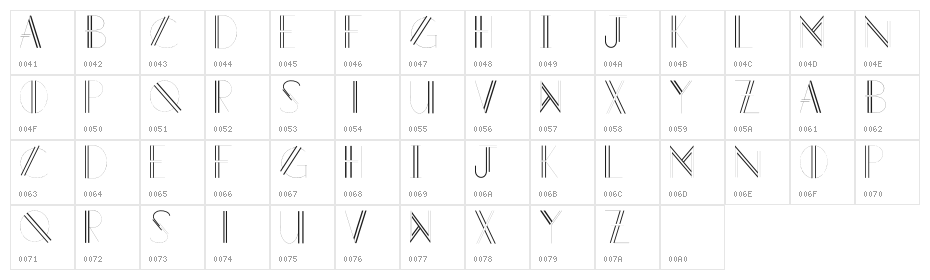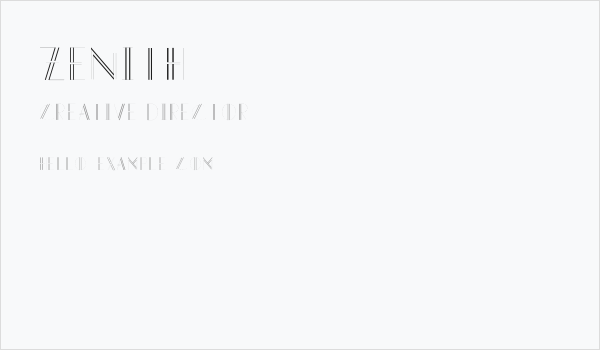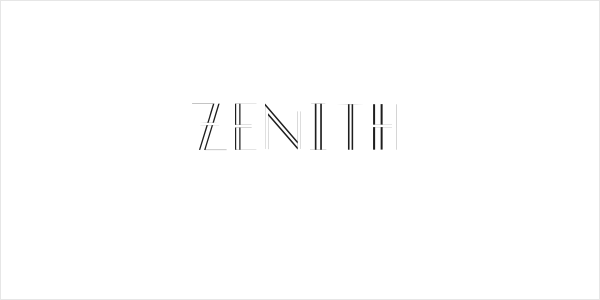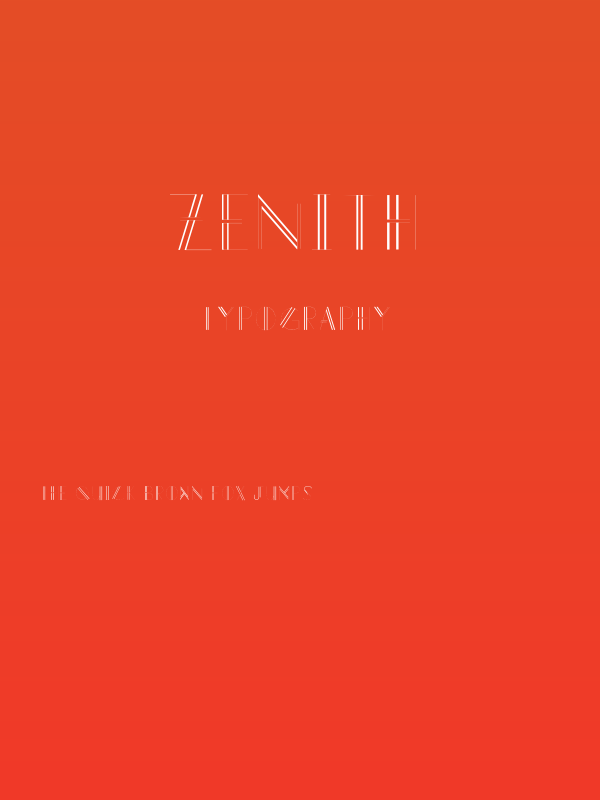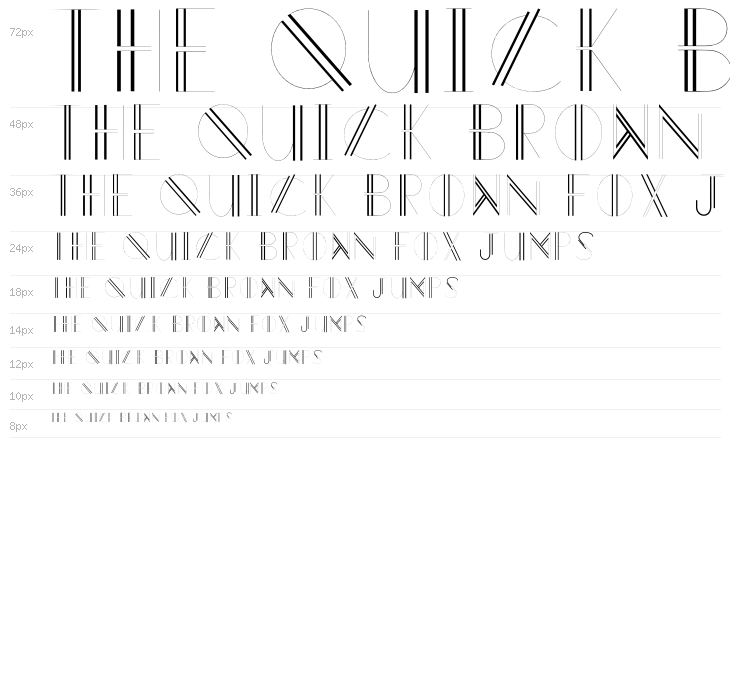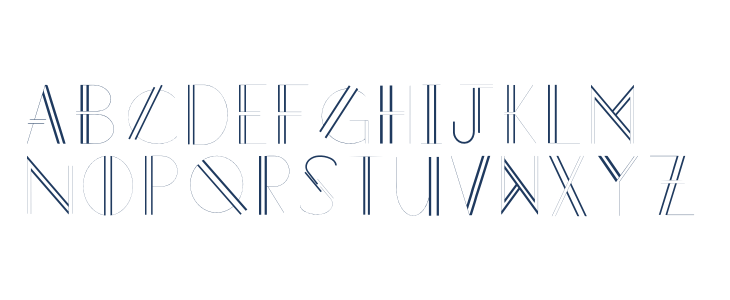
Zenith Font
Zenith Description
This font features a modern and geometric design with a unique blend of thin and thick lines, creating a high-contrast appearance. The characters are constructed with a combination of straight lines and curves, giving them a sleek and sophisticated look. The uppercase letters are particularly striking, with some incorporating diagonal lines that intersect the main strokes, adding a dynamic and futuristic feel. The overall style is clean and minimalistic, making it suitable for contemporary design projects.
| Proposed Projects | Ideal for branding, logos, headlines, and editorial design where a modern and sophisticated look is desired. |